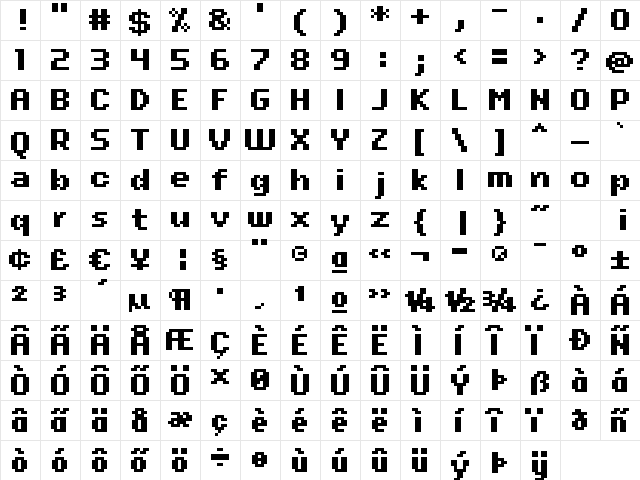
kroeger 07_66 Regular
| Foundry | Adobe Systems Incorporated |
| Designer | Craig Kroeger |
Design Context for kroeger 07_66 Typeface
kroeger 07_66 offers clean, dependable letterforms without strong stylistic allegiance, making it a practical choice for designers who need flexibility.